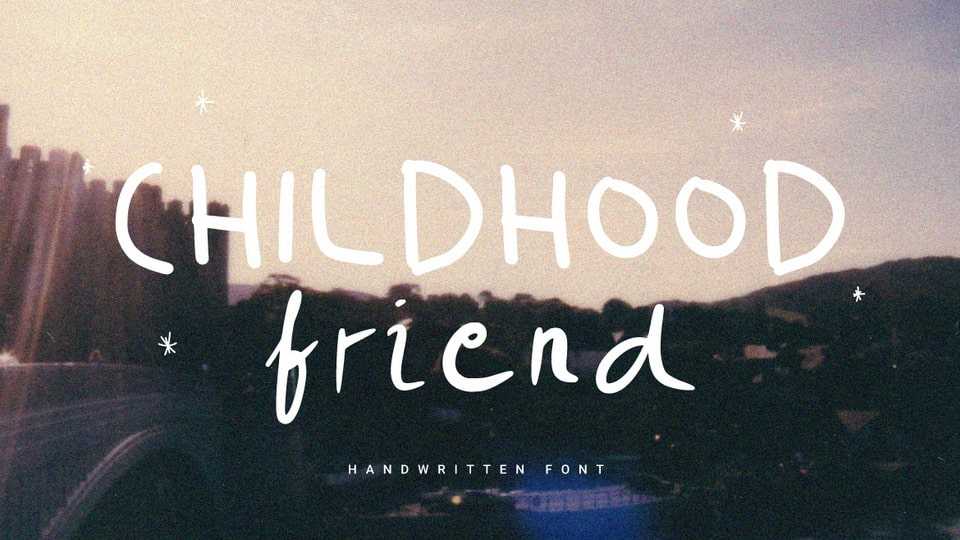
Download Childhood Friend font, a simple and fun handwritten typeface. Childhood Friend font is perfect for notes, quotes, crafts, kids books and any project that needs a handcrafted feel.
Designer: Prioritype Co